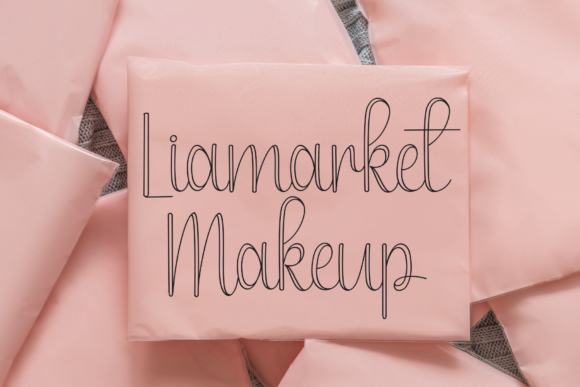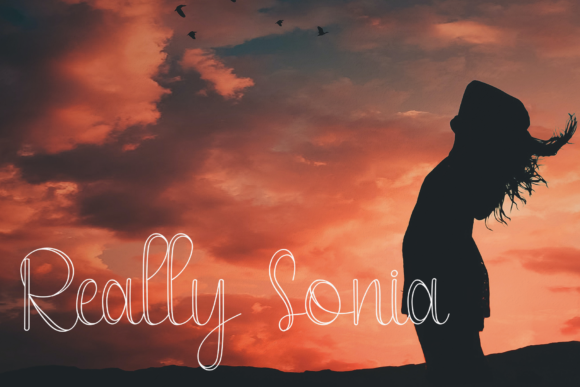
Memory Font
db-ku.com - Script & Handwritten -- Memory looks elegant and well balanced and it will most certainly elevate a wide range of your creations. It is suitable for any branding project like logos, t-shirt printing, sport designs, and more. It will look outstanding in a wide range of contexts.